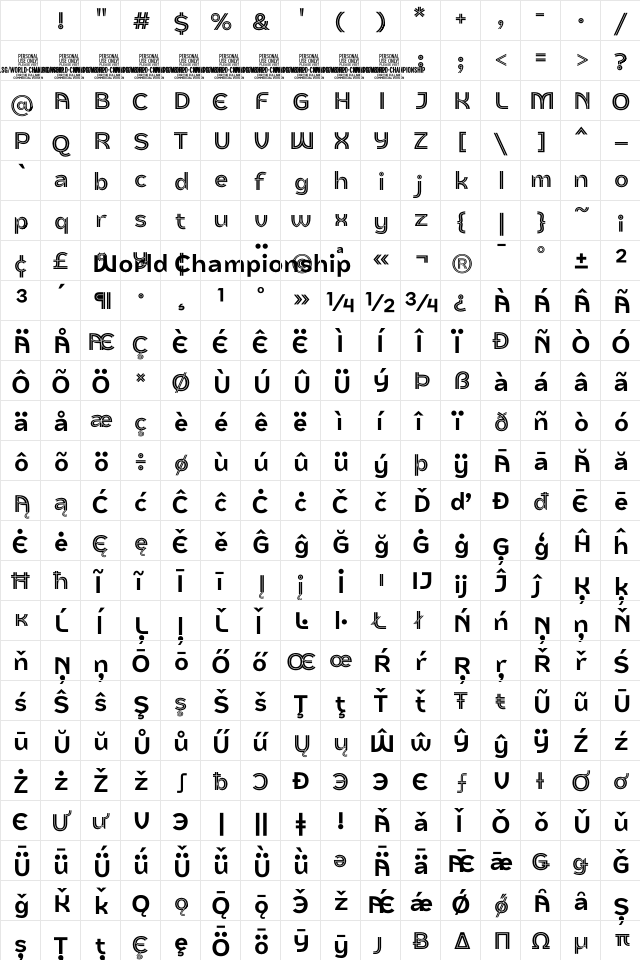
World Championship PERSONAL USE Inlined is built around its visual character rather than neutral utility - its distinctive forms are designed to make an impression at display sizes.
Font Pairing: Pair with a clean neutral sans-serif for body copy to let World Championship PERSONAL USE Inlined's character lead without overwhelming the composition.
Pro Tip: Use World Championship PERSONAL USE Inlined exclusively at display sizes - it was designed to be seen, not read at length. Let a neutral companion handle body copy.